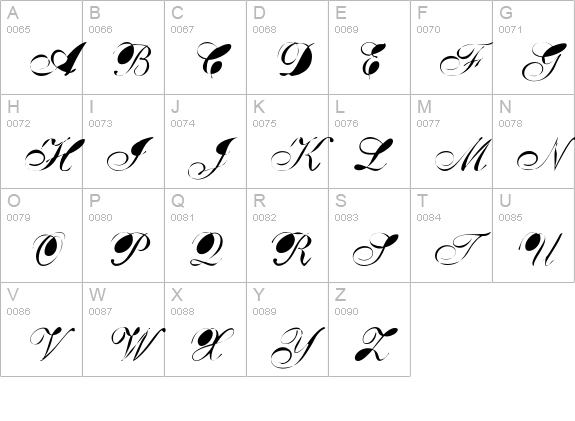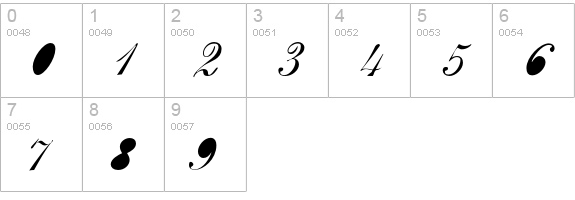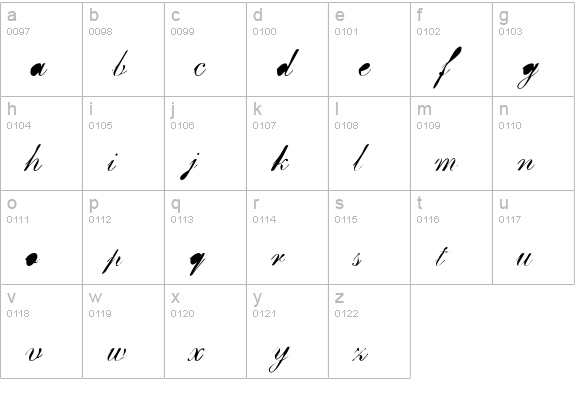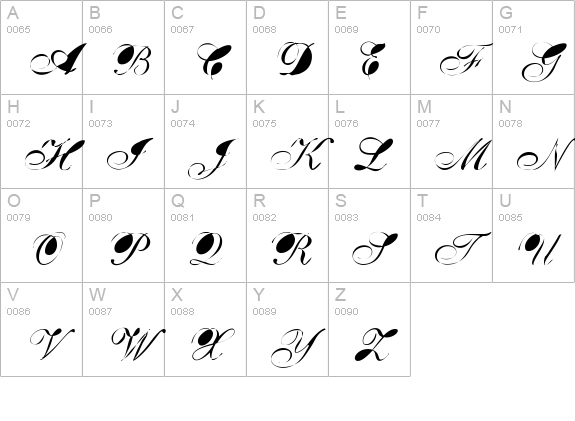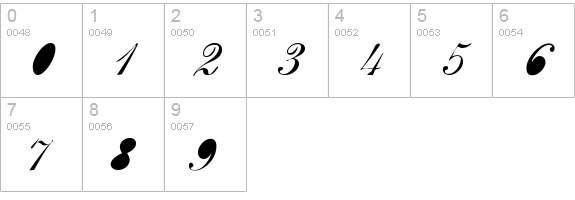
BreastBomb Font Details
BreastBomb font is a stunning display typeface that exudes elegance and sophistication. Its sleek lines and modern design make it perfect for a variety of projects, from branding to editorial design. This font is a wonderful addition to any designer's toolkit, offering versatility and style in equal measure. Best of all, BreastBomb font is available for free download at FontsMarket.com, making it accessible to designers of all levels. Whether you're working on a personal project or a client commission, this font is sure to elevate your designs and make a lasting impression. Don't miss out on the opportunity to add BreastBomb font to your collection today!